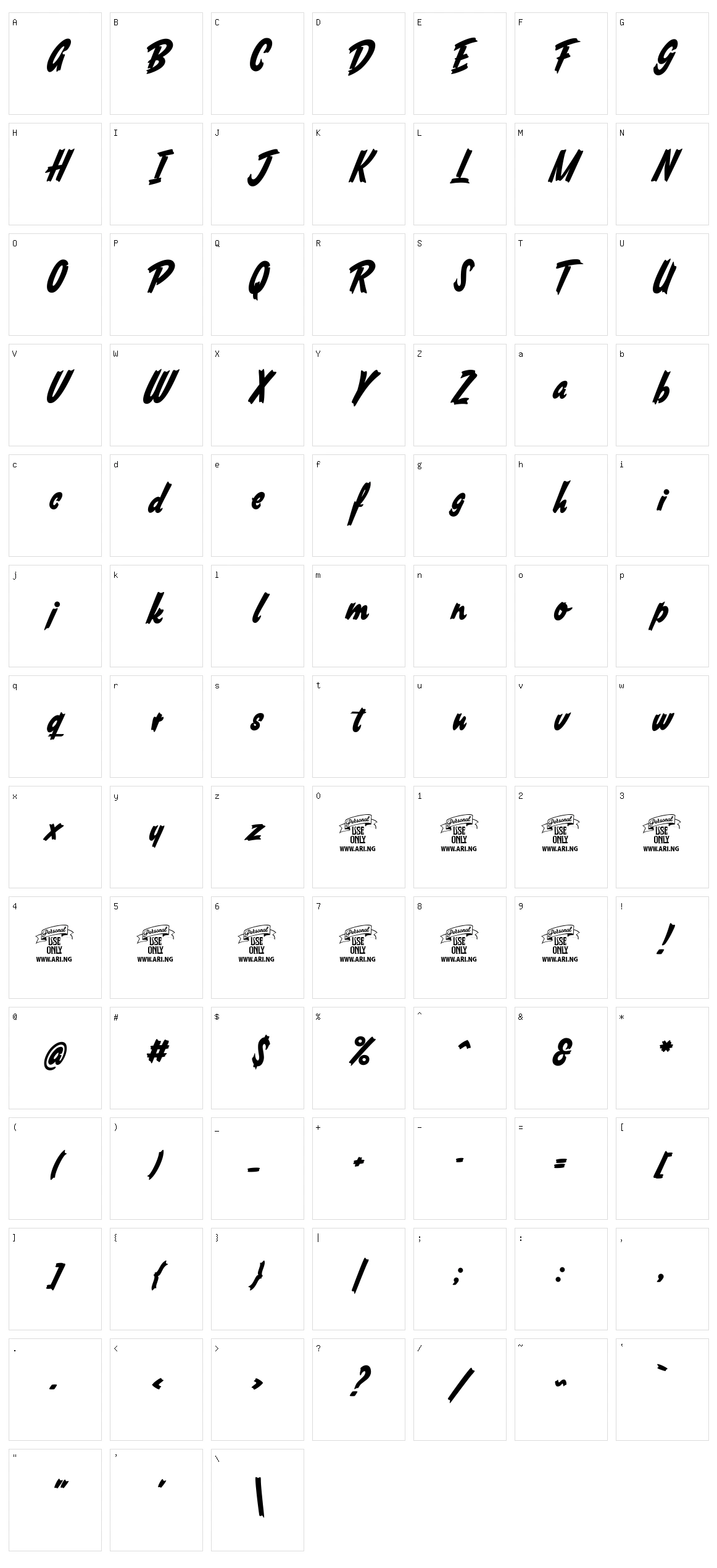
The free font South African is carefully designed by Mans Greback, showcasing a thoughtful balance of creativity and usability and falls under the Script font style. When you download the ZIP file, it contains only 1338.46 KB of font files, making it lightweight and quick to download. Please review the license details below to understand permitted usage and distribution rights. If license information is not available, we recommend using this font for personal projects only or contacting the author directly for commercial usage permissions.